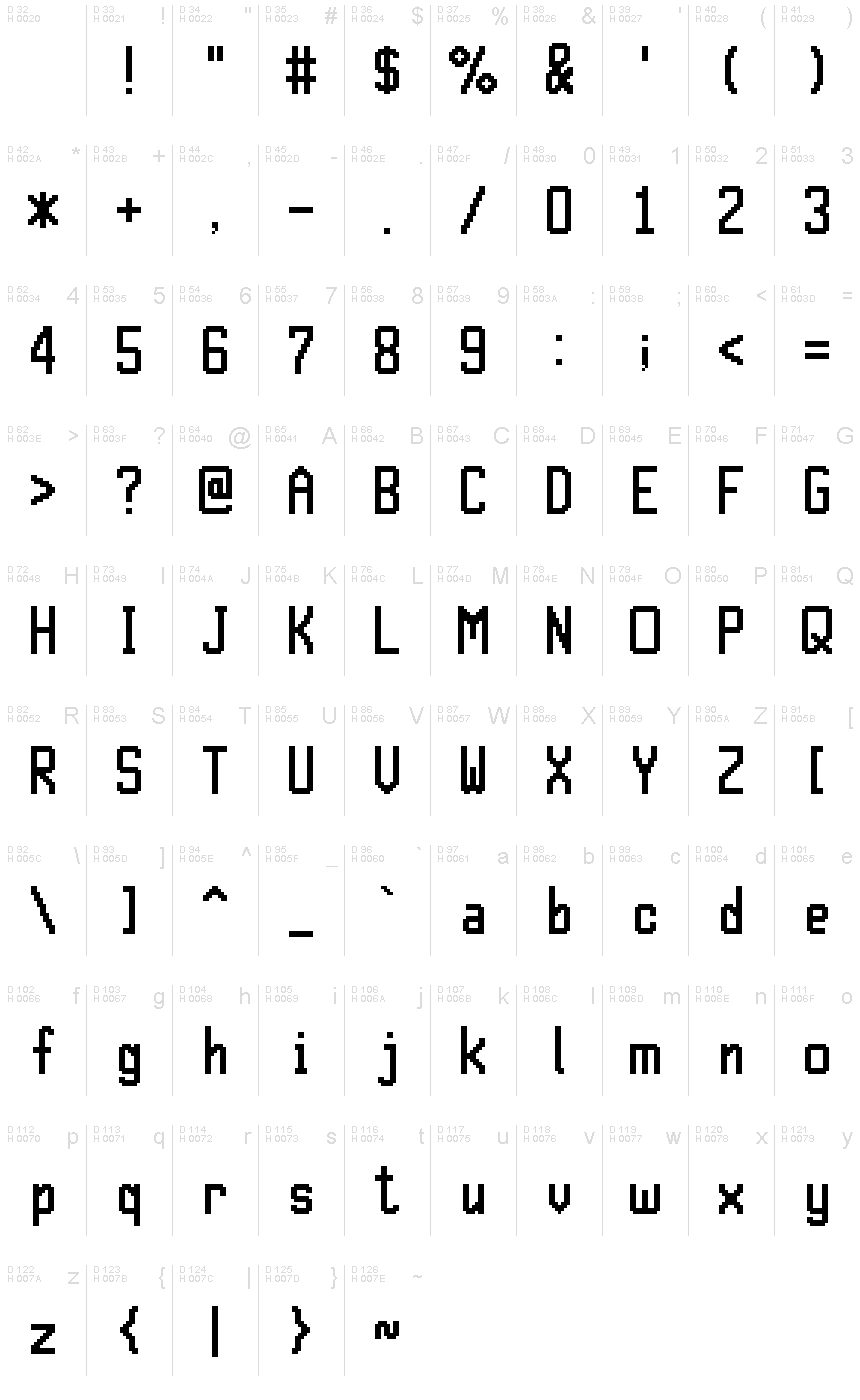
16x8Pxl_Sans Regular
My 2nd font !
A pixel font (again) made with FontStruct.
Mono and no-mono font ! There have more 330 glyphs !
Designer description: It's my 2nd police and my first with FontStruct !
2 version : mono and no-monospaced version.